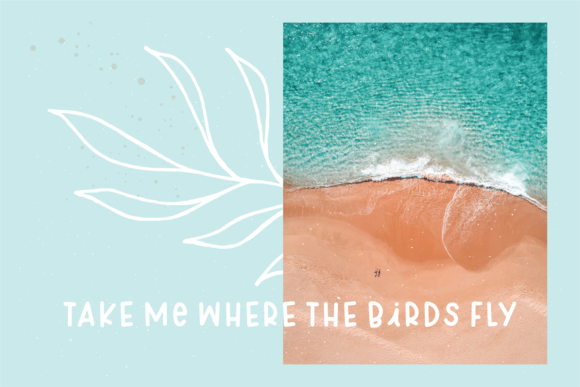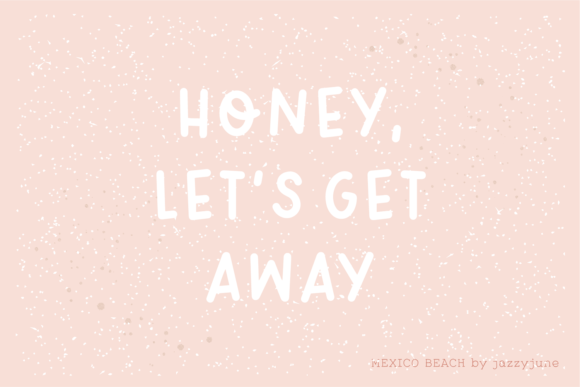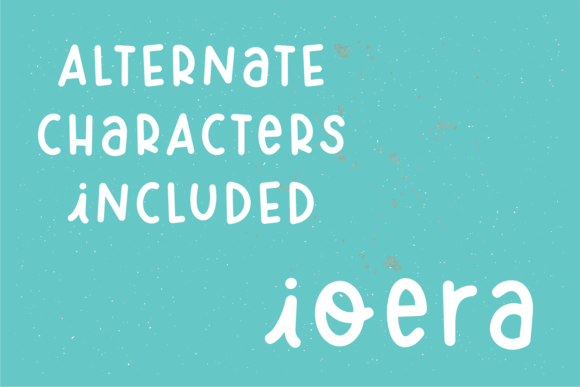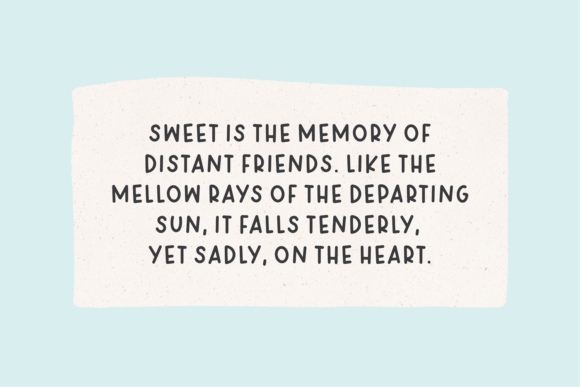
Introduction to Mexico Beach Font
Mexico Beach is a simple and stylish handwritten font.
Suitable to a wide variety of designs due to its neat vibe, this font has the potential to become your favorite go-to font, no matter the occasion .
Key Features of Mexico Beach Font
Why Choose Mexico Beach Font?
Mexico Beach Font offers exceptional quality and versatility, making it a valuable addition to your design toolkit. Whether you’re creating for personal projects or commercial use, Mexico Beach Font delivers professional results.